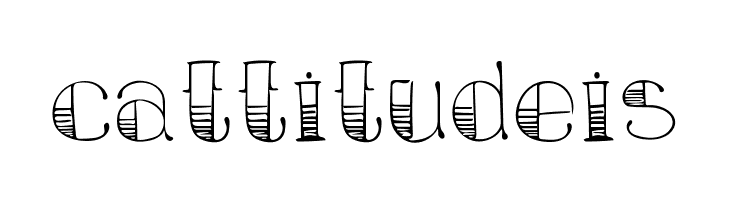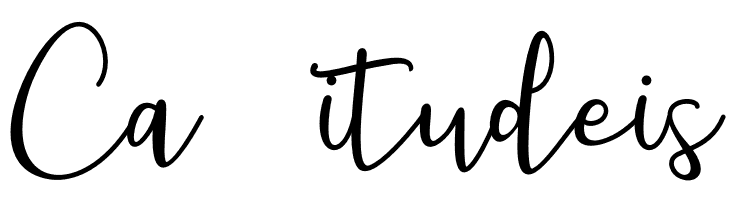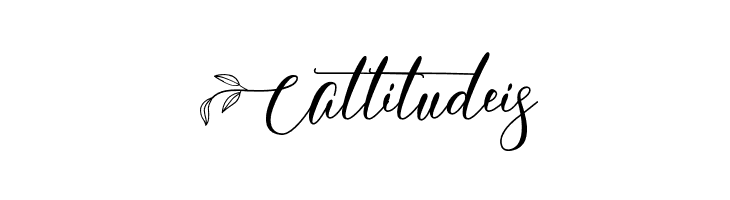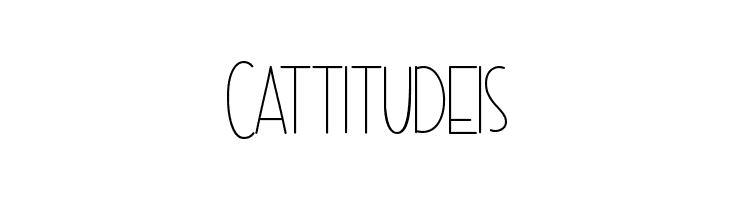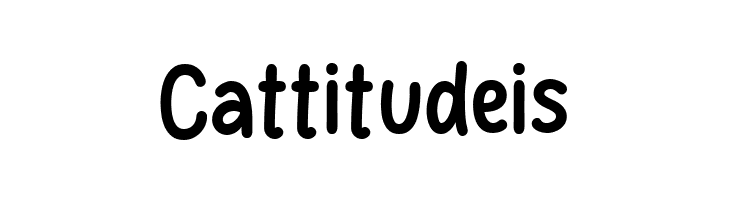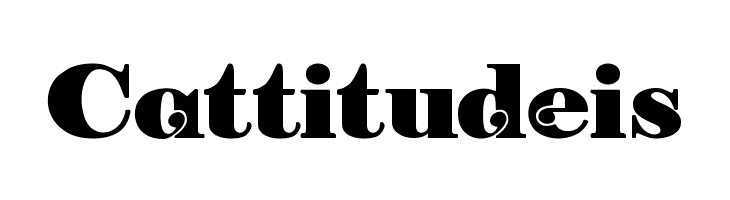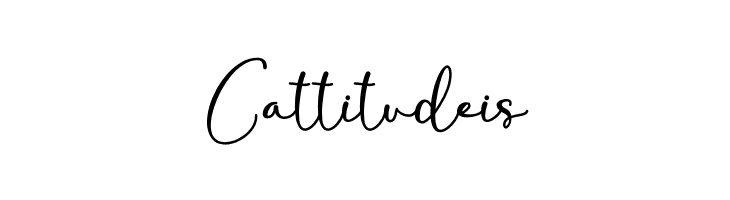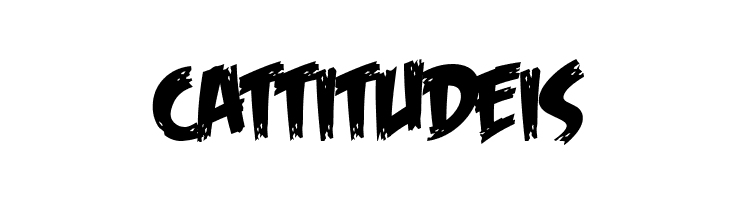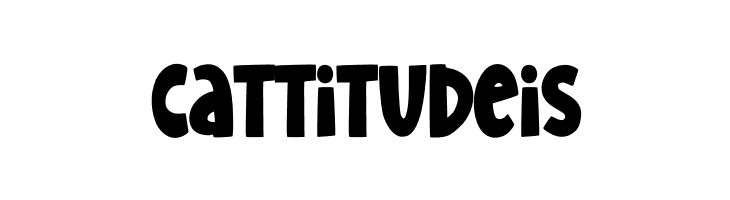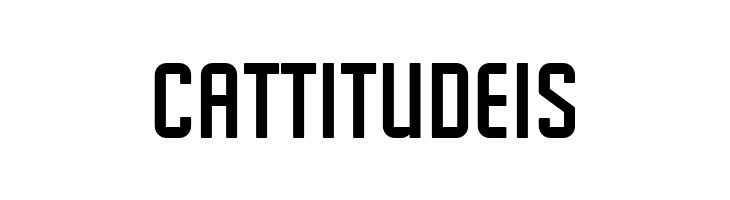
A bold, jagged font with an aggressive, brush-like style.
A bold, jagged, and italicized font with a raw, brush-like style.
A bold, distressed font with a brush-like texture and dynamic, edgy style.
A bold, hand-drawn font with jagged edges and an energetic style.
A bold, distressed brushstroke font with an edgy, dynamic style.
A lively, flowing script font with elegant, cursive letterforms.
A decorative font with characters designed to resemble intricate feathers.
An elegant, calligraphic font with high contrast and ornate details.
An elegant, decorative script font with intricate swashes and high contrast.
A decorative font with bold letters adorned by intricate feather designs.
An elegant, flowing script font with feather-like strokes and graceful curves.
A playful, rounded font with a bold and friendly style.
A playful, elegant script font with a handwritten appearance.
A bold, geometric font with a futuristic and industrial design.
A bold, blocky font with rounded edges and a strong presence.
A bold, italic, and modern typeface with thick, rounded strokes and tight spacing.
A bold, geometric font with a modern and impactful design.
A bold, geometric font with hollow interiors and a futuristic style.
A bold, hollow, geometric font with a futuristic style.
A bold, geometric font with a futuristic and digital aesthetic.
A bold, geometric font with a futuristic and modern design.
A bold, modern serif font with strong, thick strokes and pronounced serifs.
A playful and elegant script font with flowing cursive letters.
A dynamic and flowing script font with elegant, fluid strokes.
A lively and expressive script font with fluid, interconnected strokes.
A playful, hand-drawn font with striped characters and a whimsical style.
A bold, playful font with thick, rounded strokes and a whimsical touch.
Minimalist, tall sans-serif with rounded, playful forms.
A tall, narrow font with a sleek, modern design and thin, evenly spaced characters.
A delicate and elegant script font with flowing, graceful strokes.
A playful, hand-drawn doodle font resembling children's crayon art.